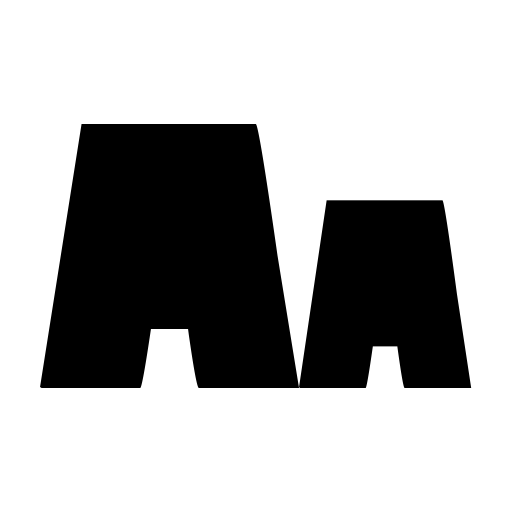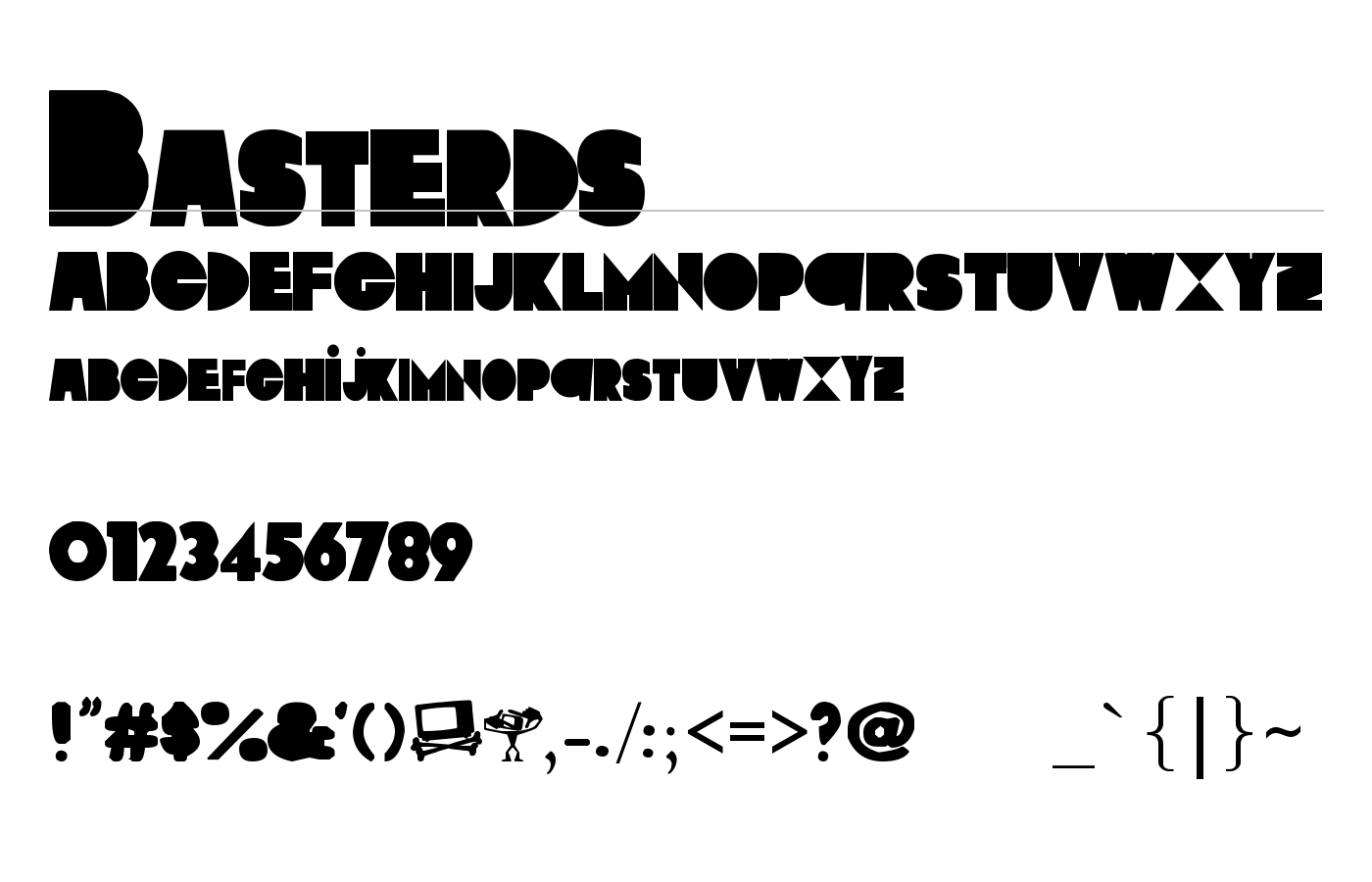
Basterds is a bold, heavy-weight sans serif font with a strong geometric influence and playful character shapes, featuring very wide letterforms with a compact height that create a striking visual impact. It shows high contrast in strokes with thick, blocky forms and quirky details, making it ideal for eye-catching headlines, posters, or branding that demands a bold, modern, and fun personality. This font works best in display usage where its unique style can shine without sacrificing readability.
Basterds Font